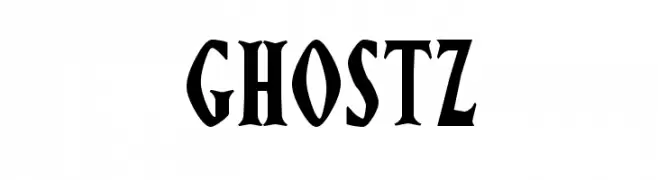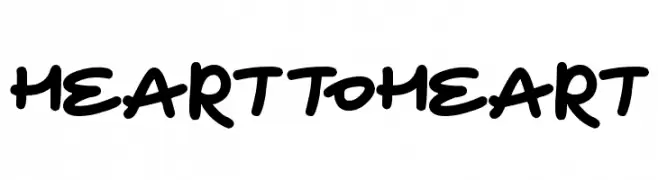
( Darrell Flood )
A bold, expressive handwritten font with a graffiti-like style.
( Darrell Flood )
A bold, sharp serif font with high contrast and a dramatic style.
( Darrell Flood )
A playful, cookie-inspired font with bold, rounded characters and decorative cutouts.
( Darrell Flood )
A playful, dotted font with bold, rounded characters perfect for festive designs.
( Darrell Flood )
A bold, rounded font with a modern and playful style.
( Darrell Flood )
A bold, italic font with rounded characters and a modern, energetic style.
( Darrell Flood )
A playful, handwritten font with rounded edges and a casual style.
( Darrell Flood )
A bold, geometric sans-serif font with a modern and clean aesthetic.
( Darrell Flood )
A bold, modern font with tall, narrow characters and a strong presence.
( Darrell Flood )
A playful, dotted font with a whimsical and bubbly appearance.